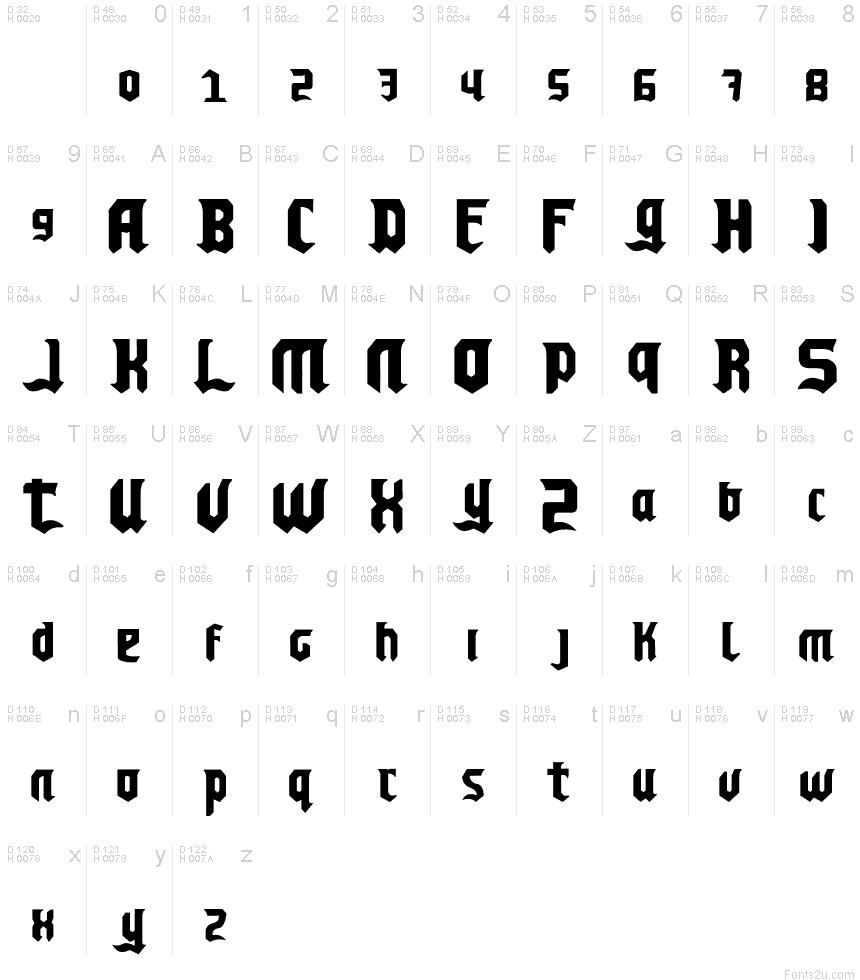
Chello Playah
Chello Playah font by Jordie van Rijn is a free scary blackletter display typeface. Its heavy, chiseled strokes and jagged inner corners feel like they’ve been carved into stone, giving every word a brooding, gothic presence. The letters stack tightly together, forming a dense, shadowy texture that immediately sets a dark, ominous mood without slipping into messy chaos.
Using Chello Playah, your titles snap into focus on horror posters, haunted house branding, Halloween event flyers, game covers, and metal band logos. This free font also works beautifully for eerie book covers and attention-grabbing YouTube thumbnails where you need text to feel dangerous and deliberate. Pair it with a clean, neutral sans serif for body copy and let Chello Playah handle the loud, dramatic headlines.